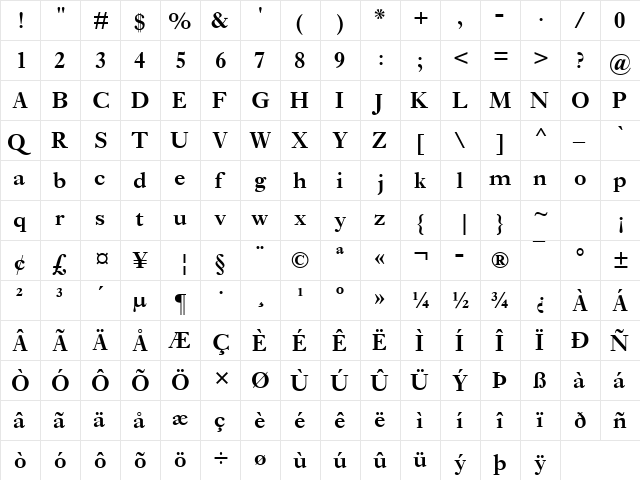
Ehrhardt MT SemiBold Font Preview
Ehrhardt MT SemiBold
Ehrhardt MT SemiBold Font Details
| Style | SemiBold |
| Foundry | Agfa Monotype Corporation |
| Designer | Stanley Morison |
Design Context for Ehrhardt MT Typeface
Ehrhardt MT takes a measured approach to typography — its balanced proportions and neutral character make it a reliable workhorse for both digital and print work. Its bold stroke weight gives it real presence on the page.